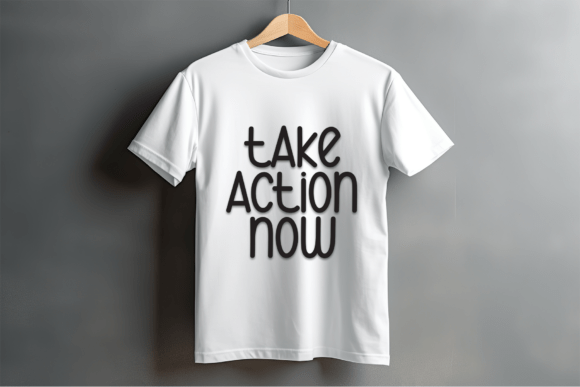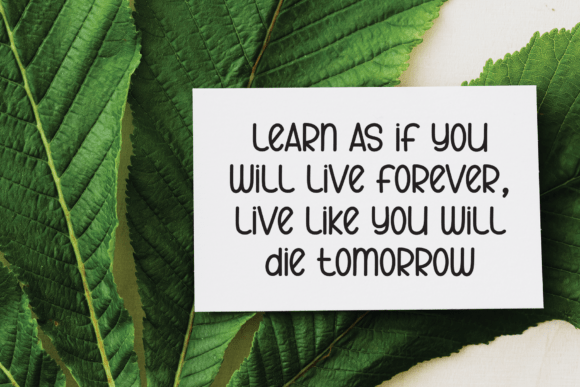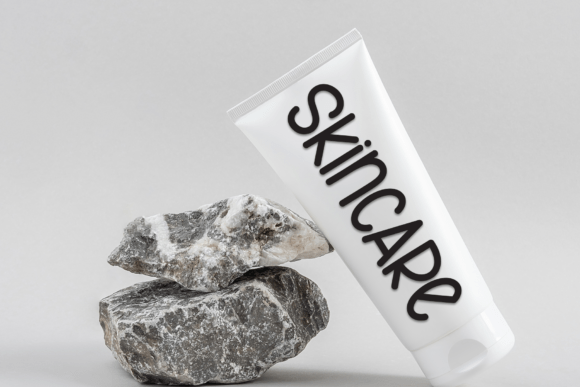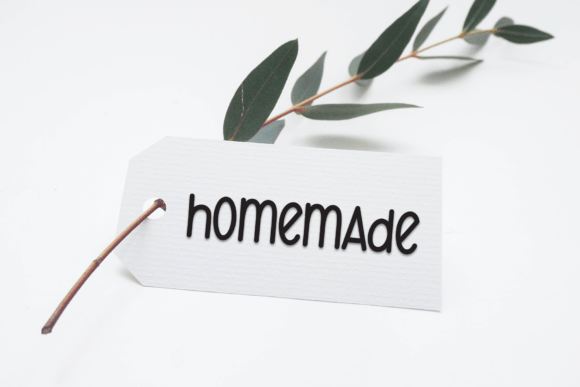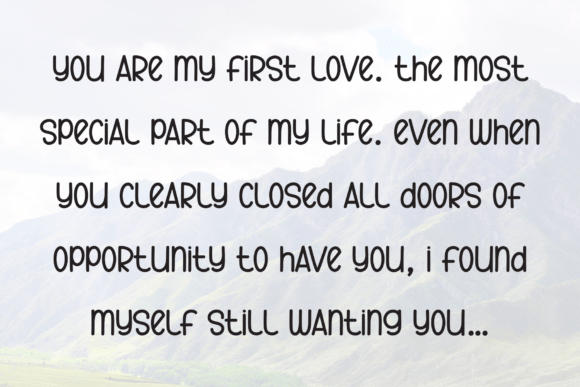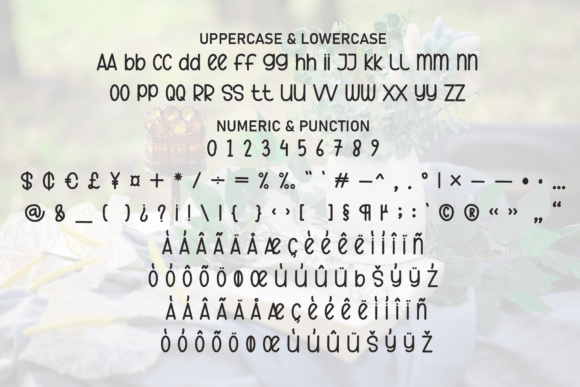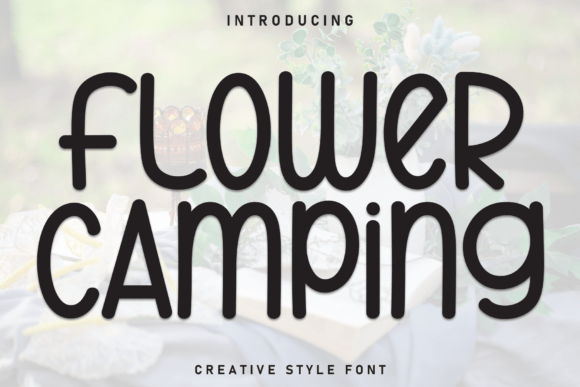
Introducing Flower Camping Font: The Perfect Blend of Clarity and Relaxed Charm
Are you on the hunt for a font that embodies the perfect balance of modern sophistication and laid-back charm? Look no further than Flower Camping Font, a neat and casual display font designed to bring a touch of personality to your designs. With its clean lines, friendly letterforms, and playful energy, Flower Camping Font is ideal for a wide range of creative projects, from headlines and posters to packaging and branding.
What Makes Flower Camping Font Stand Out?
Flower Camping Font boasts a unique blend of clarity and approachability, making it perfect for designers who want to create modern yet laid-back designs. Its balanced structure ensures that the font remains readable, even at larger sizes, while its playful energy adds a touch of whimsy to any project. Whether you’re working on a branding campaign, a poster design, or a packaging project, Flower Camping Font is sure to bring a fresh and youthful vibe to your work.
Key Features of Flower Camping Font
- Clean Lines: Flower Camping Font features clean lines that give it a modern and sophisticated look.
- Friendly Letterforms: The font’s friendly letterforms add a touch of approachability and warmth to any design.
- Balanced Structure: The font’s balanced structure ensures that it remains readable, even at larger sizes.
- Playful Energy: Flower Camping Font has a playful energy that adds a touch of whimsy to any project.
Flower Camping Font is a versatile font that can be used for a wide range of design projects, including:
- Headlines: Use Flower Camping Font to create bold and eye-catching headlines that grab attention.
- Posters: Add a touch of personality to your poster designs with Flower Camping Font.
- Packaging: Use Flower Camping Font to create eye-catching packaging designs that stand out on store shelves.
- Branding: Flower Camping Font is perfect for branding projects that require a modern yet laid-back vibe.
Why Choose Flower Camping Font?
There are many fonts to choose from, but Flower Camping Font stands out from the crowd. Here are just a few reasons why:
- Unique Blend of Style and Readability: Flower Camping Font offers a unique blend of style and readability, making it perfect for designers who want to create visually appealing designs that are also easy to read.
- Playful yet Professional: The font’s playful energy and professional look make it perfect for a wide range of design projects.
- Easy to Use: Flower Camping Font is easy to use and can be easily integrated into your design workflow.
Tips for Using Flower Camping Font
Here are a few tips for using Flower Camping Font in your designs:
- Use it as a Display Font: Flower Camping Font is perfect for use as a display font, where it can be used to create bold and eye-catching headlines.
- Pair it with Other Fonts: Experiment with pairing Flower Camping Font with other fonts to create visually appealing font combinations.
- Use it in Combination with Images: Use Flower Camping Font in combination with images to create visually appealing designs that tell a story.
Flower Camping Font is a unique and versatile font that is perfect for designers who want to create modern yet laid-back designs. With its clean lines, friendly letterforms, and playful energy, Flower Camping Font is ideal for a wide range of creative projects. Whether you’re working on a branding campaign, a poster design, or a packaging project, Flower Camping Font is sure to bring a fresh and youthful vibe to your work.